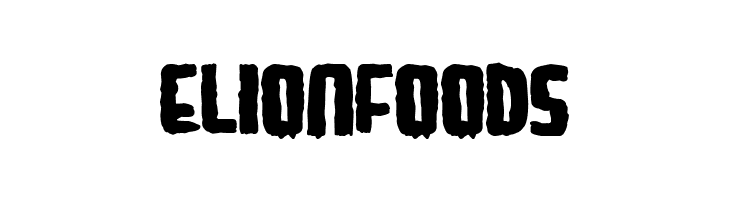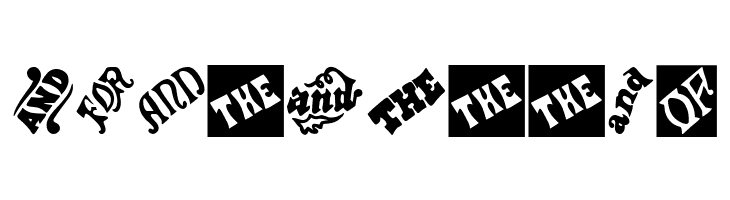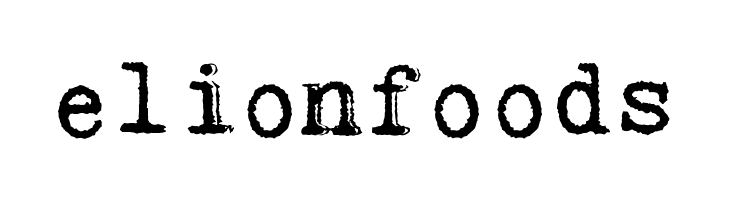
( Fonts by Edignwn Type )
A bold, handcrafted font with a vintage, playful style.
( Fonts by PutraCetol Studio )
A bold, vintage-inspired font with a playful, retro aesthetic.
( Fonts by Letterday Studio )
An ornate, vintage-style font with decorative frames around each character.
( Fonts by PiPi Creative )
A vintage-inspired script font with elegant curves and flowing lines.
( Fonts by Din Studio )
A classic, elegant handwritten font with a vintage signature style.
( Fonts by Scratchones )
A vintage-inspired handwritten font with elegant, fluid strokes.
Distressed, bold display font with a vintage horror vibe.
Ornate, vintage-inspired catchword display font with bold, decorative styling.
A bold, slab serif font with strong, well-defined characters and a vintage touch.
( Fonts by Jeff Levine. FREEWARE )
Bold, enclosed characters with a vintage TV-inspired style.
( Font by kingthingsfonts.co.uk )
A vintage, typewriter-style font with a distressed, monospaced design.
( Fonts by Kevin Christopher - www.kcfonts.com )
A bold, distressed font with a rugged, vintage Western style.
( Fonts by Kevin Christopher - www.kcfonts.com )
A bold, distressed font with a vintage, rugged texture.
( Fonts by Jeff Levine. FREEWARE )
A decorative font featuring vintage-inspired signage and illustrations.
( Fonts by Jeff Levine. FREEWARE )
A collection of vintage-style illustrations and signage evoking mid-20th century Americana.
( Fonts by Jeff Levine. FREEWARE )
A decorative font inspired by vintage grocery store packaging with a retro and playful style.
( Fonts by Jeff Levine. FREEWARE )
A decorative display font inspired by vintage theater signs with an Art Deco flair.
( Fonts by Jeff Levine. FREEWARE )
A retro font with letters inside floppy disk shapes, perfect for vintage tech themes.
( Fonts by Jeff Levine. FREEWARE )
A detailed illustration of 1950s American storefronts, capturing vintage charm.
( Fonts by Jeff Levine. FREEWARE )
A decorative font inspired by vintage postal stamps and labels.
( Fonts by Jeff Levine. FREEWARE )
A decorative, vintage-inspired font with theatrical elements and bold, eye-catching letters.
( Fonts by Kevin Christopher - www.kcfonts.com )
A bold, textured font with a vintage, distressed style.
( Fonts by Kevin Christopher - www.kcfonts.com )
A bold, distressed font with a vintage, textured style.
( Fonts by Kevin Christopher - www.kcfonts.com )
A bold, distressed font with a rugged, vintage appearance.
( Fonts by Kevin Christopher - www.kcfonts.com )
A bold, distressed font with a vintage, grunge aesthetic.